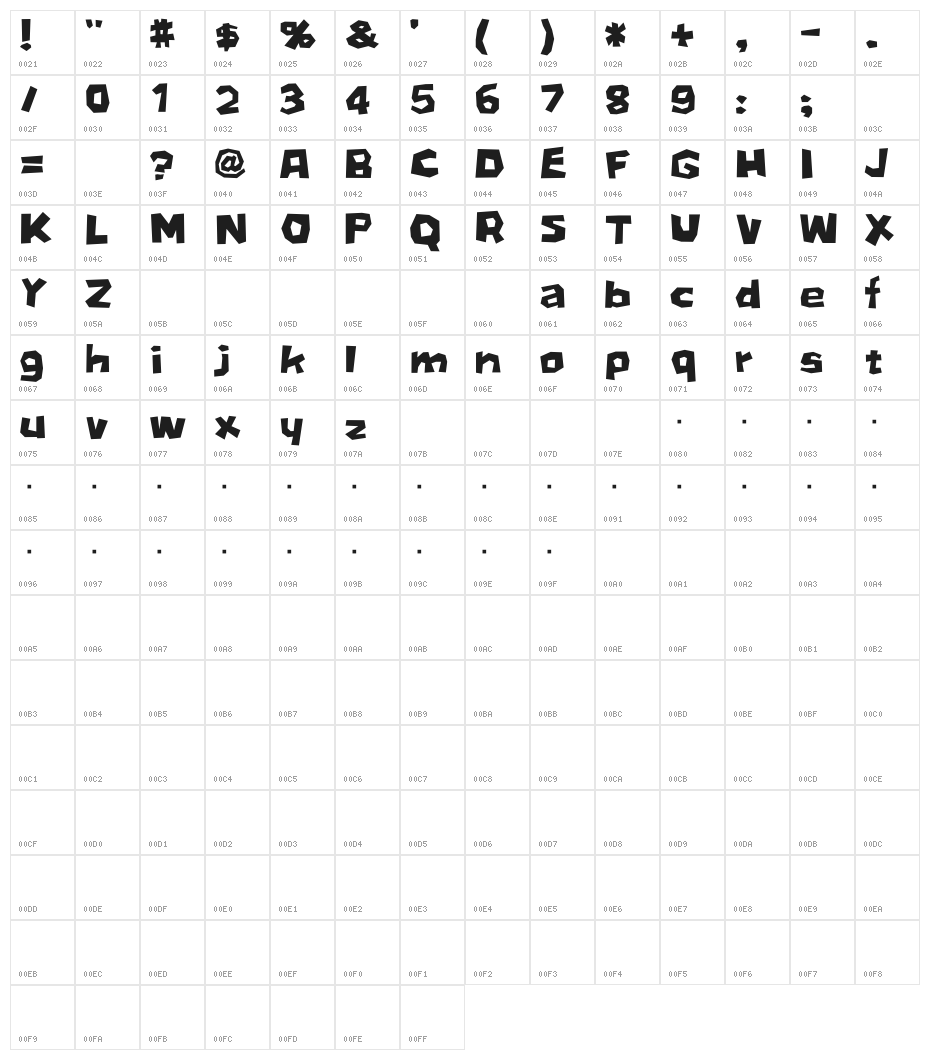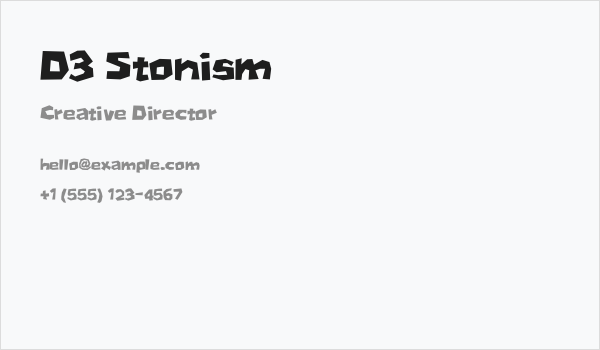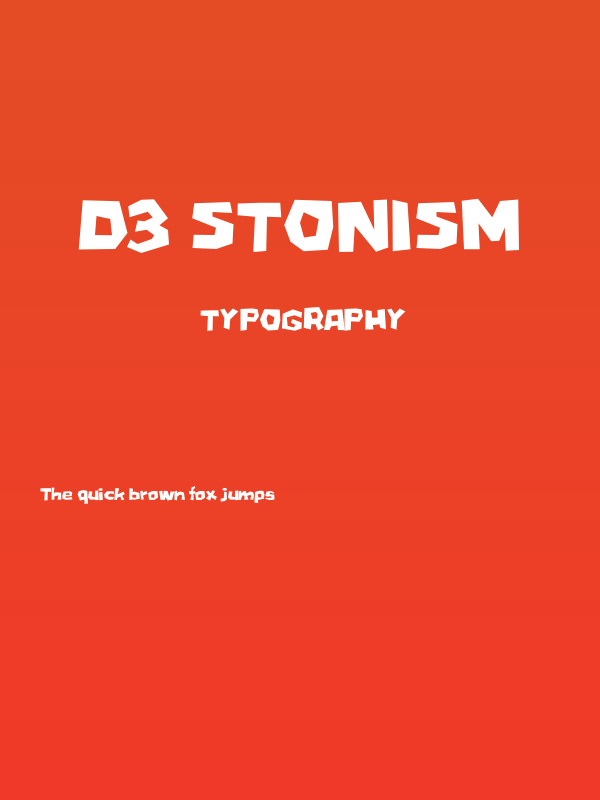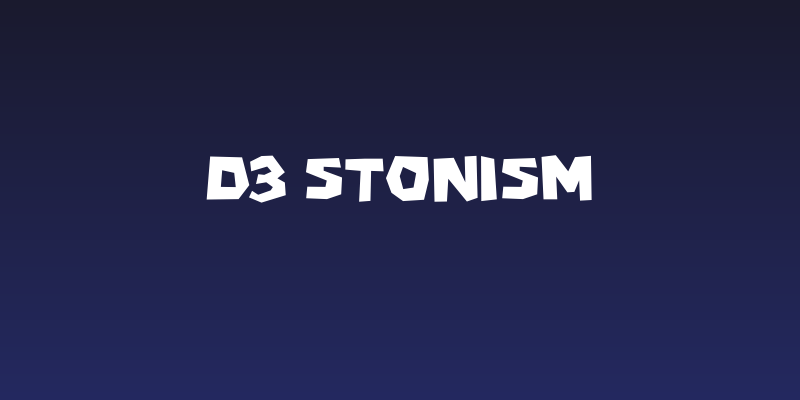
D3 Stonism Font
D3 Stonism Description
This font features a bold and angular design, characterized by its sharp, jagged edges and geometric shapes. The letters have a strong presence, with thick strokes and a slightly irregular form that gives them a rugged, stone-like appearance. The uppercase and lowercase letters maintain a consistent style, while the numbers and special characters complement the overall aesthetic. This font's unique style makes it stand out, offering a dynamic and edgy look that is both modern and distinctive.
D3-STONISM UPPERCASE
D3-STONISM LOWERCASE
D3-STONISM OTHER CHARS
| Proposed Projects | Ideal for projects requiring a strong, impactful visual presence, such as posters, logos, video game titles, and branding for edgy or adventurous themes. |